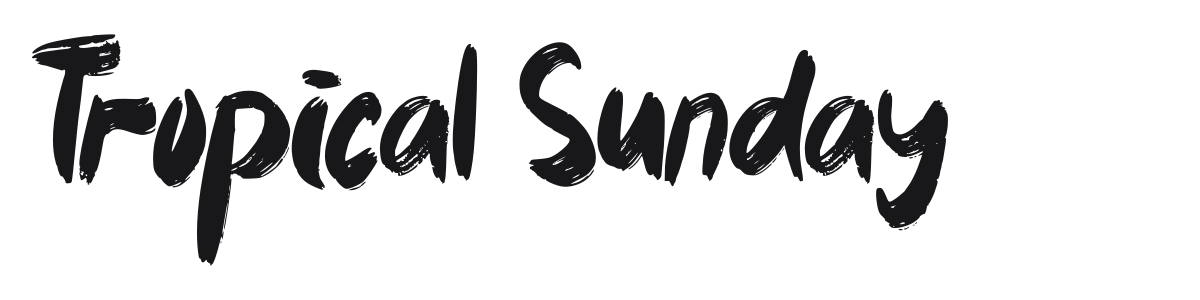
Tropical Sunday
Tropical Sunday is a bold, dry-brush script with heavy texture and raw bristle marks that give it a genuinely hand-painted feel. The letters flow with casual energy and natural stroke variation, landing somewhere between a street-art marker and a beachside signboard. It works best at large sizes where the texture reads clearly.